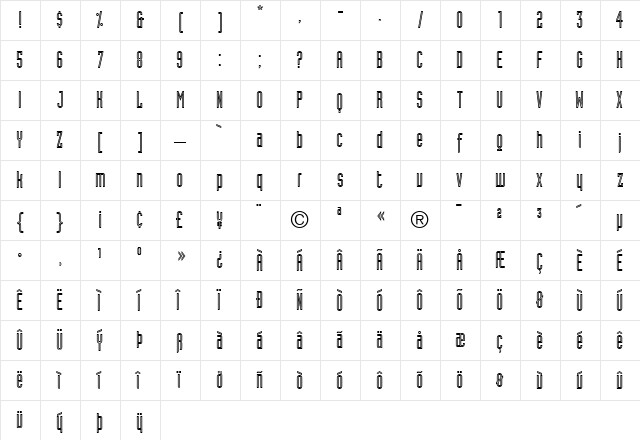
IndustriaInlineA Roman Font Preview
IndustriaInlineA Roman
IndustriaInlineA Roman Font Details
Design Context for IndustriaInlineA Typeface
IndustriaInlineA is built around its visual character rather than neutral utility — its distinctive forms are designed to make an impression at display sizes.
Font Pairing: Pair with a clean neutral sans-serif for body copy to let IndustriaInlineA's character lead without overwhelming the composition.
Pro Tip: Use IndustriaInlineA exclusively at display sizes — it was designed to be seen, not read at length. Let a neutral companion handle body copy.